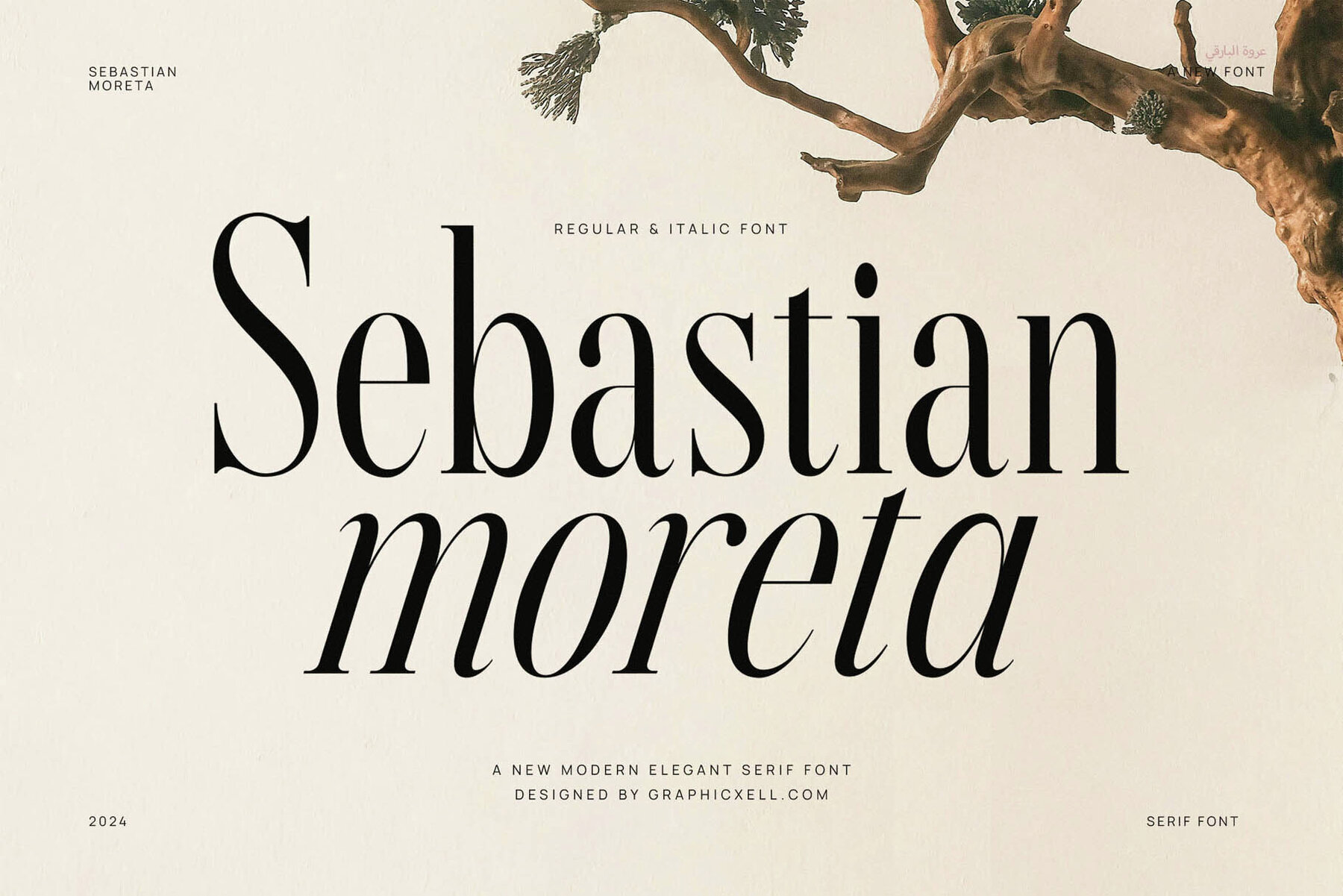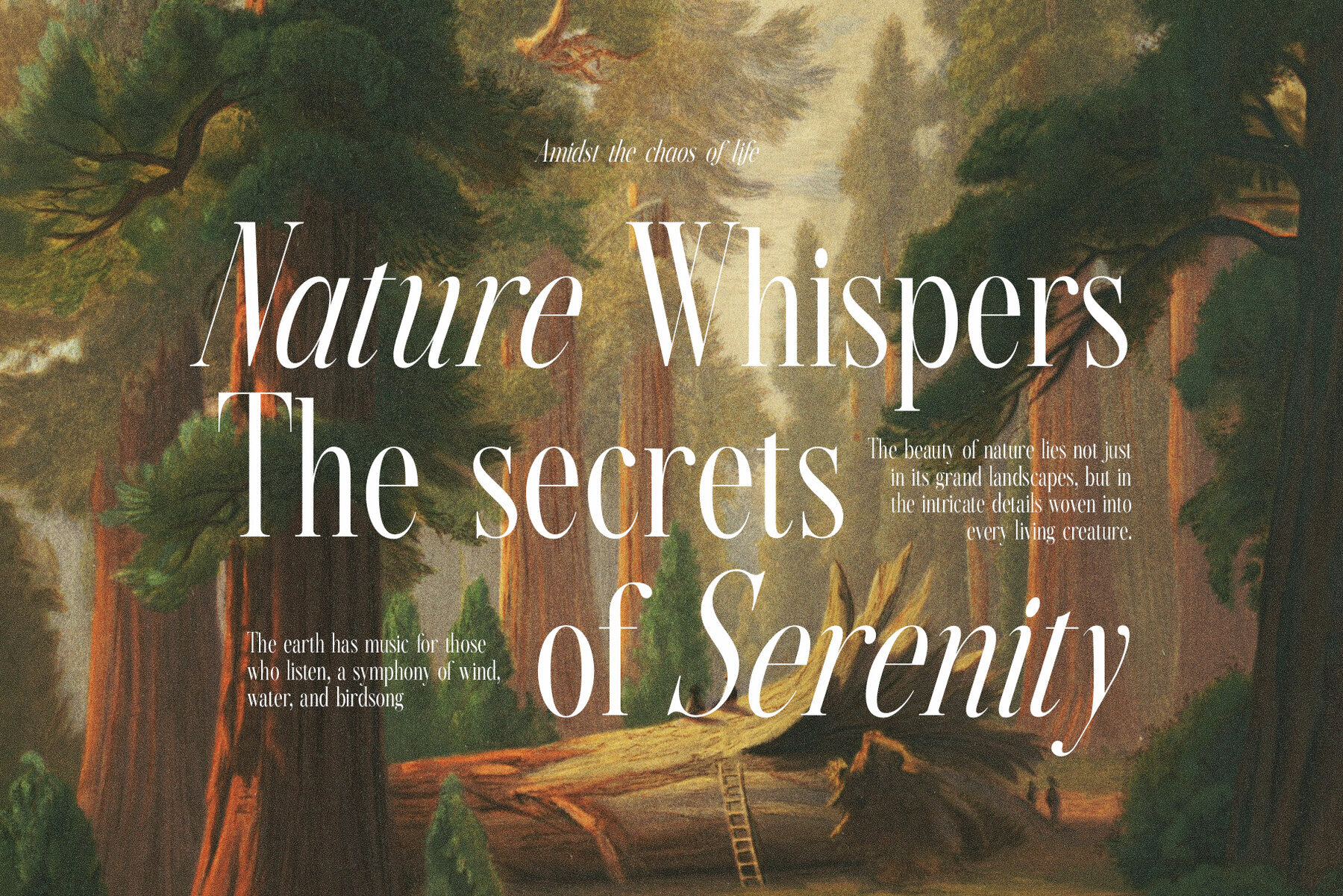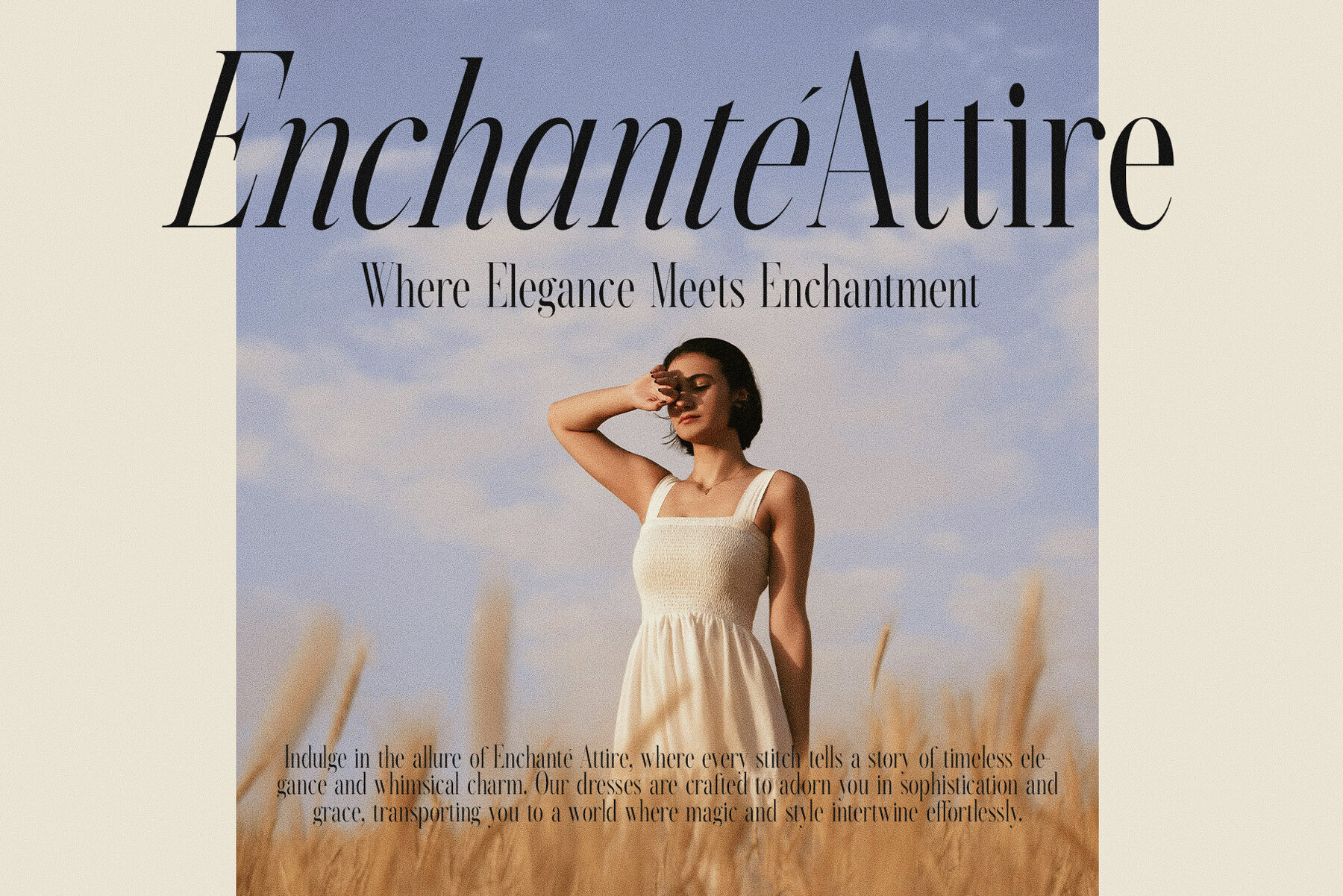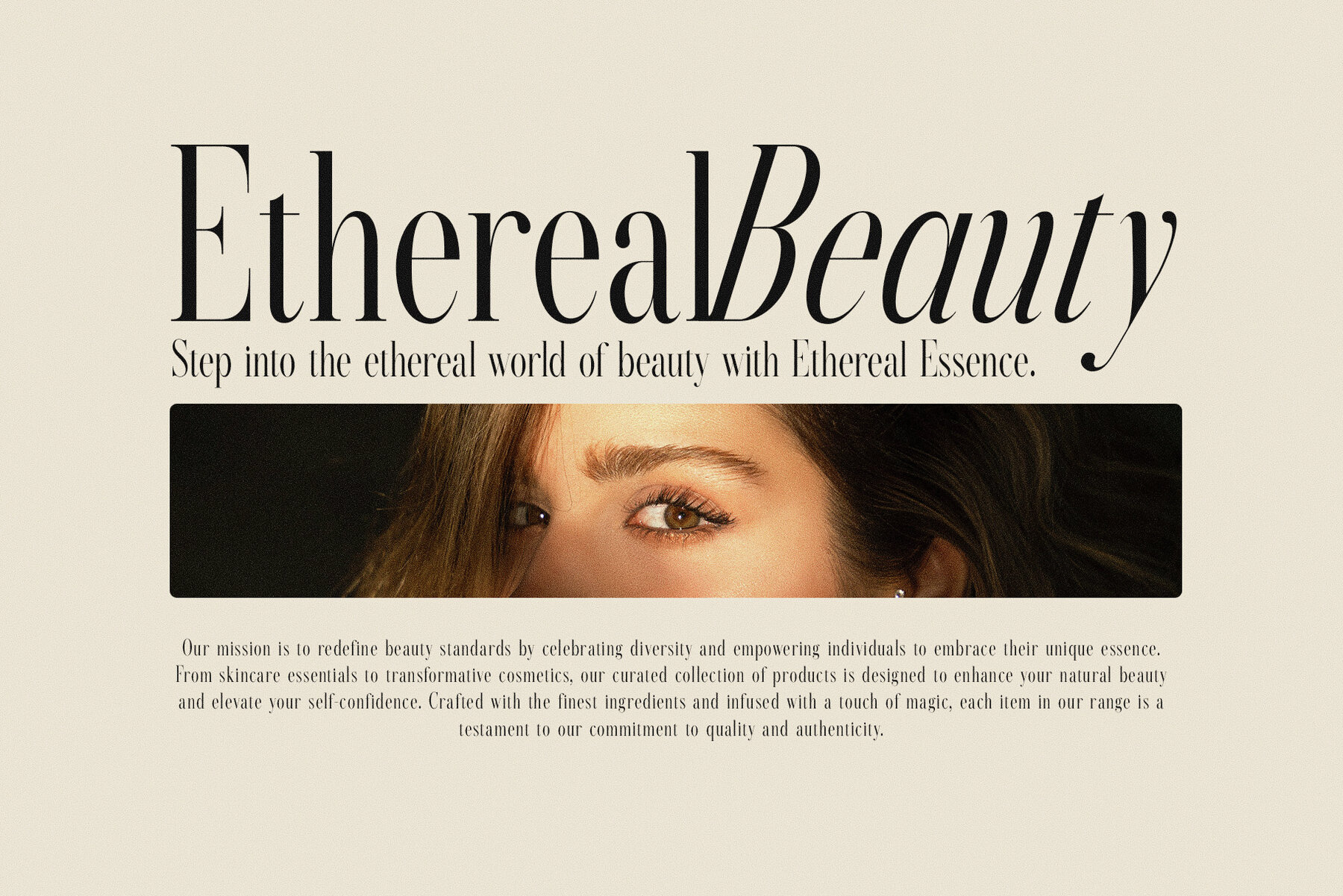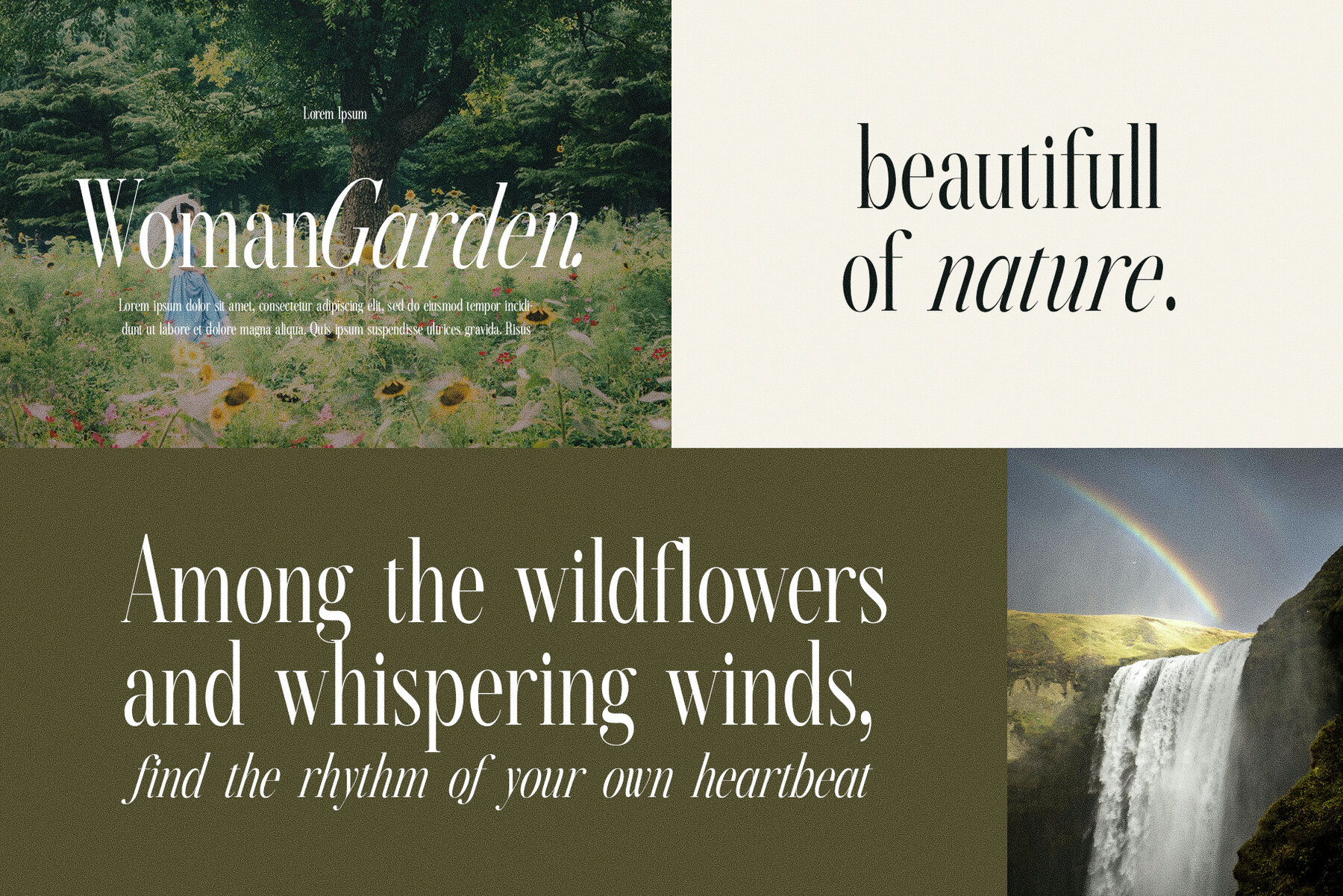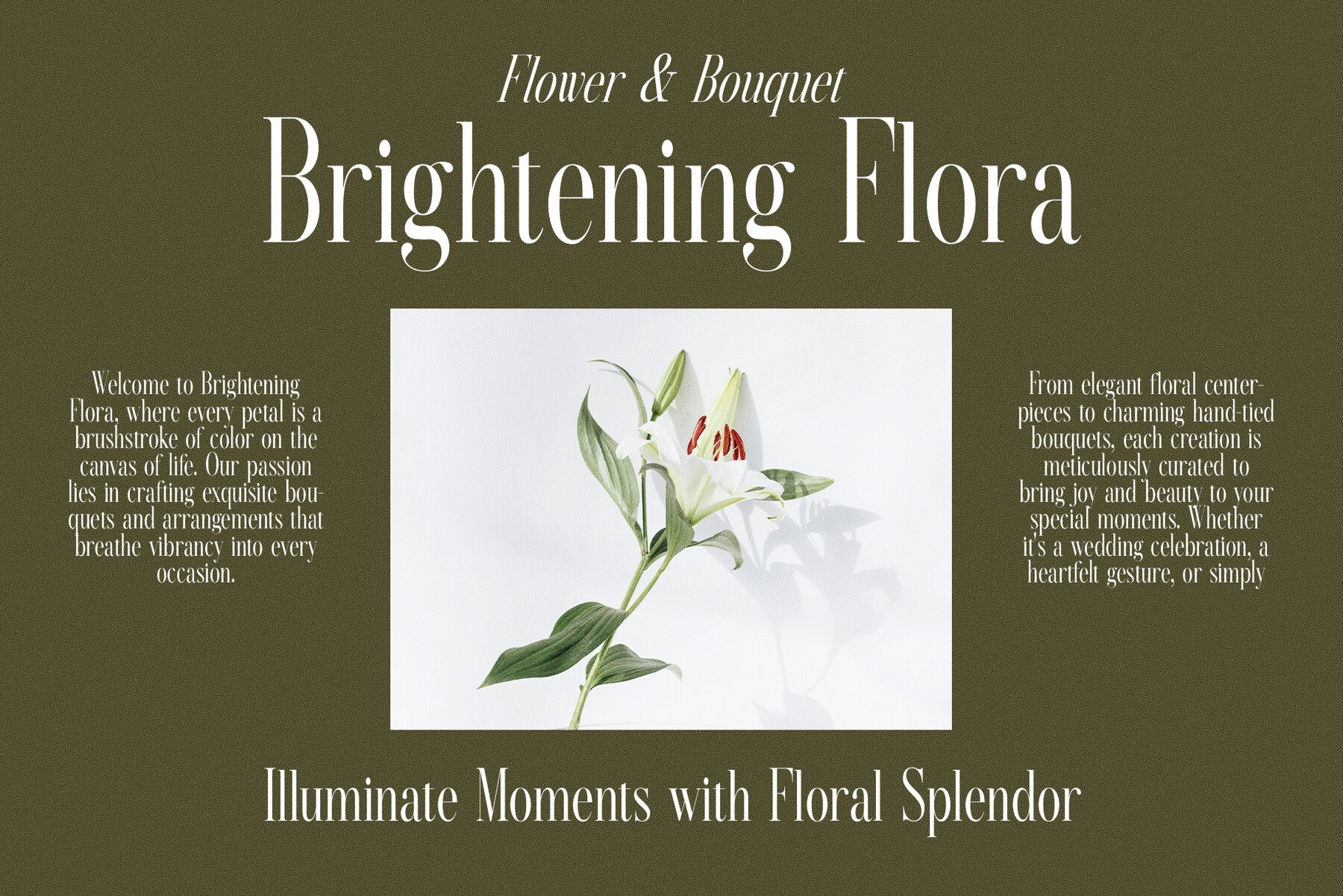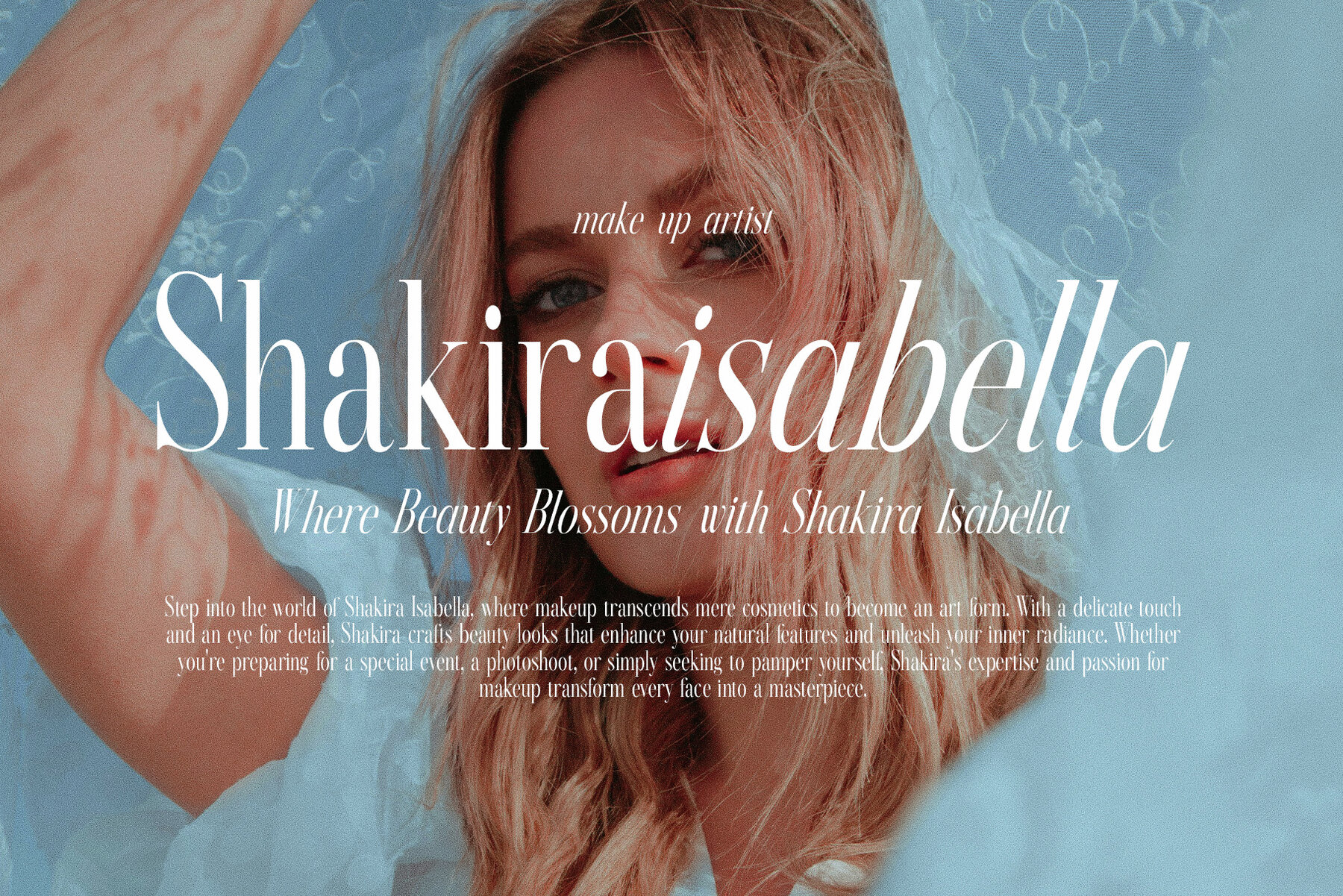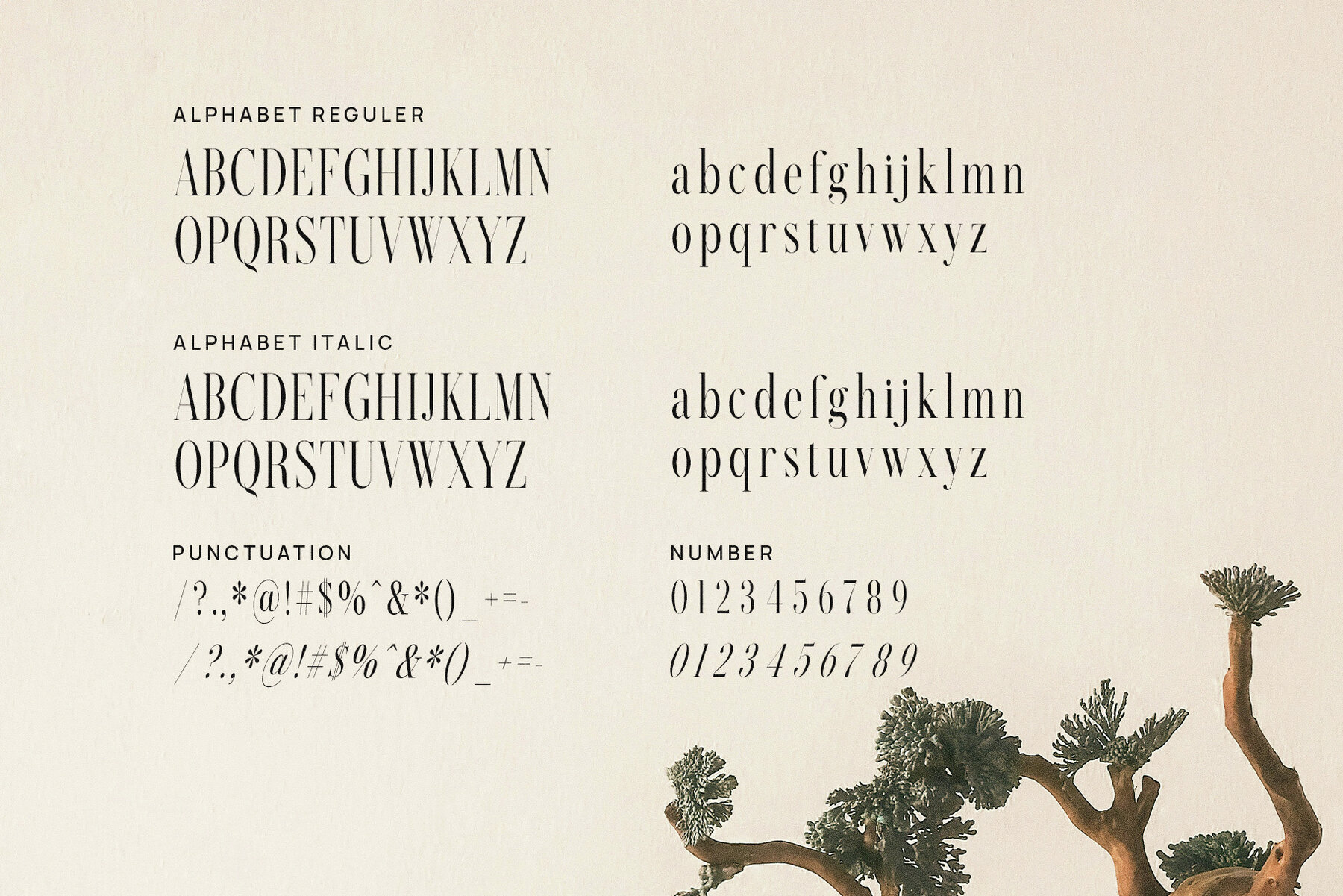
Sebastian Moreta Font
Sebastian Moreta Elegant Serif Font offers both regular and italic styles, perfectly combining sophistication and classic nuance. The upright letterforms in the regular style add an elegant touch, while the italic style introduces a timeless feel. Crafted with sharp, pointed tails and smooth, eye-catching curves, this serif font stands out with its variation in line thickness. Ideal for formal projects such as books, journals, and magazines, Sebastian Moreta emphasizes clean and impressive typography. It includes character standards, numerals, punctuation, and accented characters for West European languages. Compatible with both PC and Mac, and recommended for use with Adobe Illustrator or Photoshop.